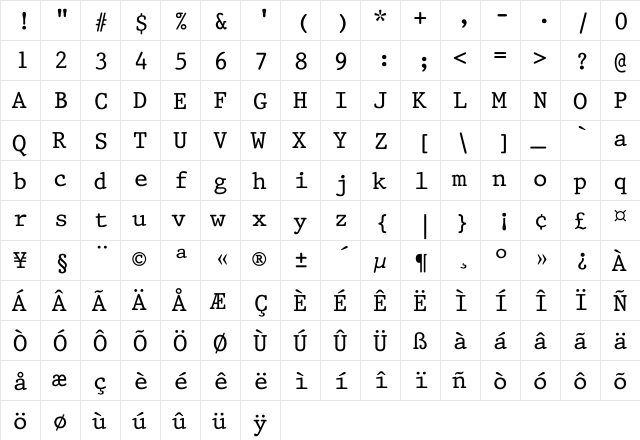
King Regular
Design Context for King Typeface
King offers clean, dependable letterforms without strong stylistic allegiance, making it a practical choice for designers who need flexibility.
Pro Tip: Use King in both headline and body roles to test its range before committing to a single application.